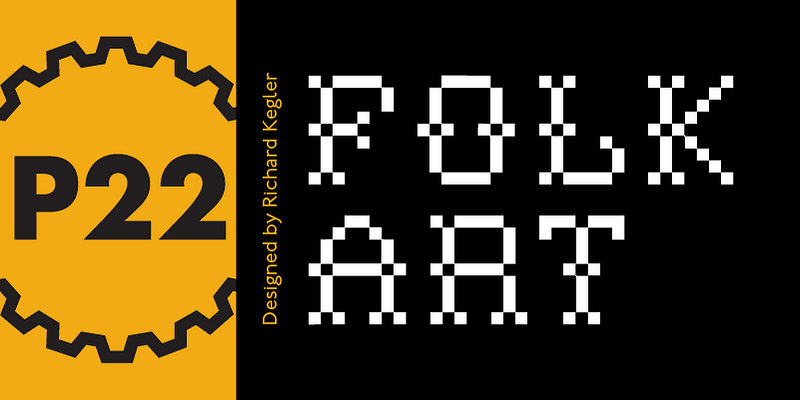
P22 Folk Art Font Free Download is a unique and playful display typeface inspired by folk art and handcraft traditions. With its whimsical shapes and hand-drawn style, this font is perfect for projects that need a rustic, vintage, or creative touch, including logos, posters, branding, invitations, and any design project that calls for a bit of personality.
P22 Folk Art Font is ideal for display text and offers great visual interest in large headings or short phrases. It integrates seamlessly with popular design tools like Adobe Illustrator, Photoshop, Figma, and Canva, providing flexibility for both print and digital designs.